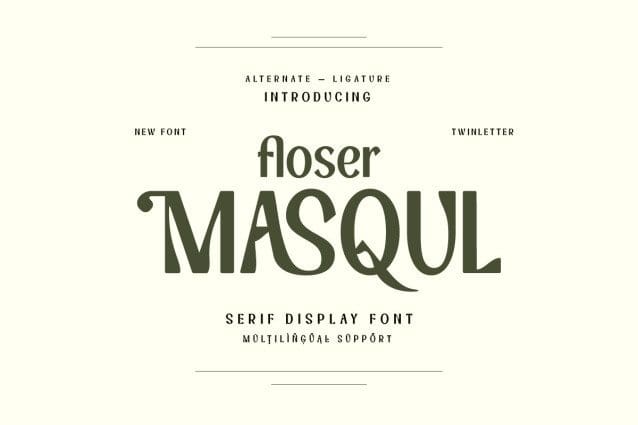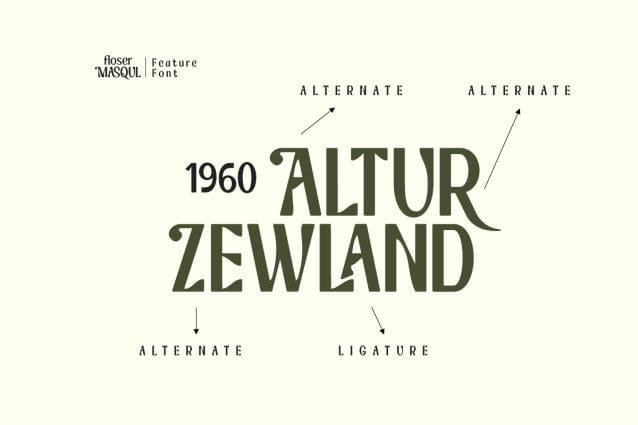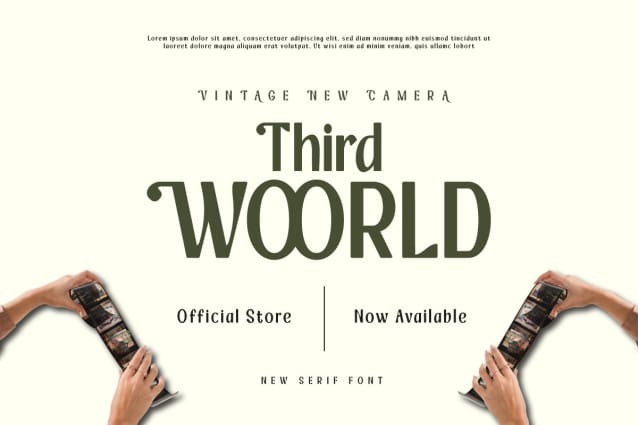
Floser Masqul Font
Floser Masqul Font, your designs will always look their best. It’s perfect for those designs where you need to convey a sense of elegance and sophistication, such as luxury brand logos or high-end invitations. When you use Floser Masqul, you’re not just choosing a font, you’re choosing a lifestyle.